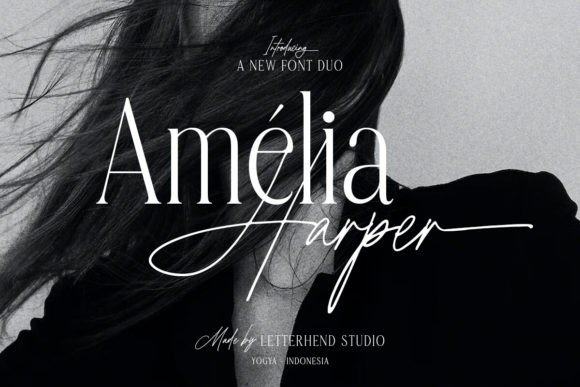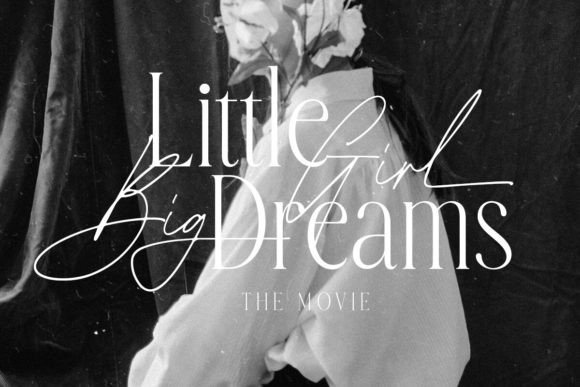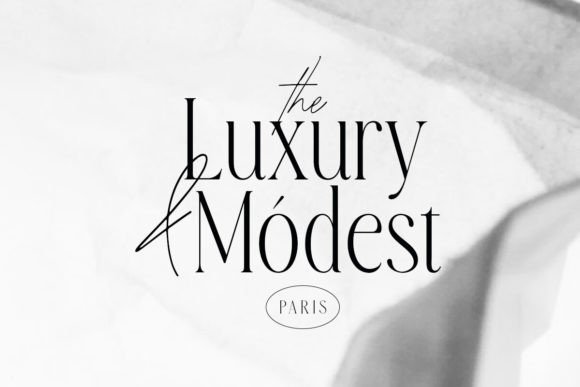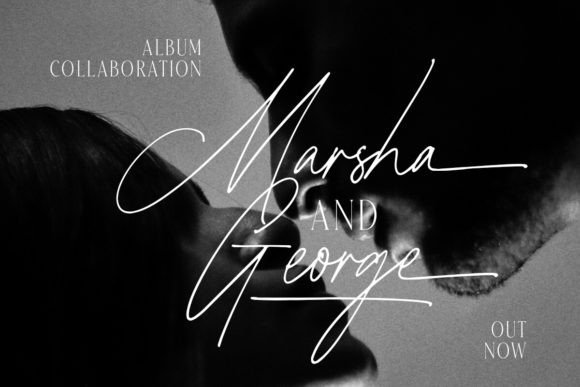
Amelia Harper Font
About the Amelia Harper Font
Get ready to be inspired by Amelia Harper Font, a fresh and dynamic typeface for modern creators. Amelia Harper is a new font duo where the elegance of a serif font intertwines flawlessly with the beauty of a handwritten script. This font duo is carefully crafted to bring together the classic charm of serifs with the contemporary edge of modern scripts. Whether you’re designing wedding invitations, branding materials, or editorial layouts, Amelia Harper effortlessly elevates your projects with its timeless appeal and stylish versatility.
Amelia Harper excels in projects requiring a touch of refined elegance. It’s ideal for wedding stationery, logos for luxury brands, or short-form editorial pieces where its graceful script and serif pairing create a sophisticated impact. However, its intricate details make it less suitable for body text or UI elements where readability at smaller sizes is crucial. Avoid using it for lengthy paragraphs or applications demanding high levels of screen legibility.
For optimal pairings, consider complementing the script with a clean, geometric sans-serif like Montserrat for a modern contrast, or a classic serif like Garamond for a more traditional feel. Pairing the serif component with a playful, rounded sans-serif like Lato could also create a balanced and approachable aesthetic.
The overall personality of Amelia Harper is sophisticated and romantic, making it a strong choice for brands projecting luxury, artistry, or timeless appeal.
Amelia Harper Font Usage Examples
Amelia Harper Font Example